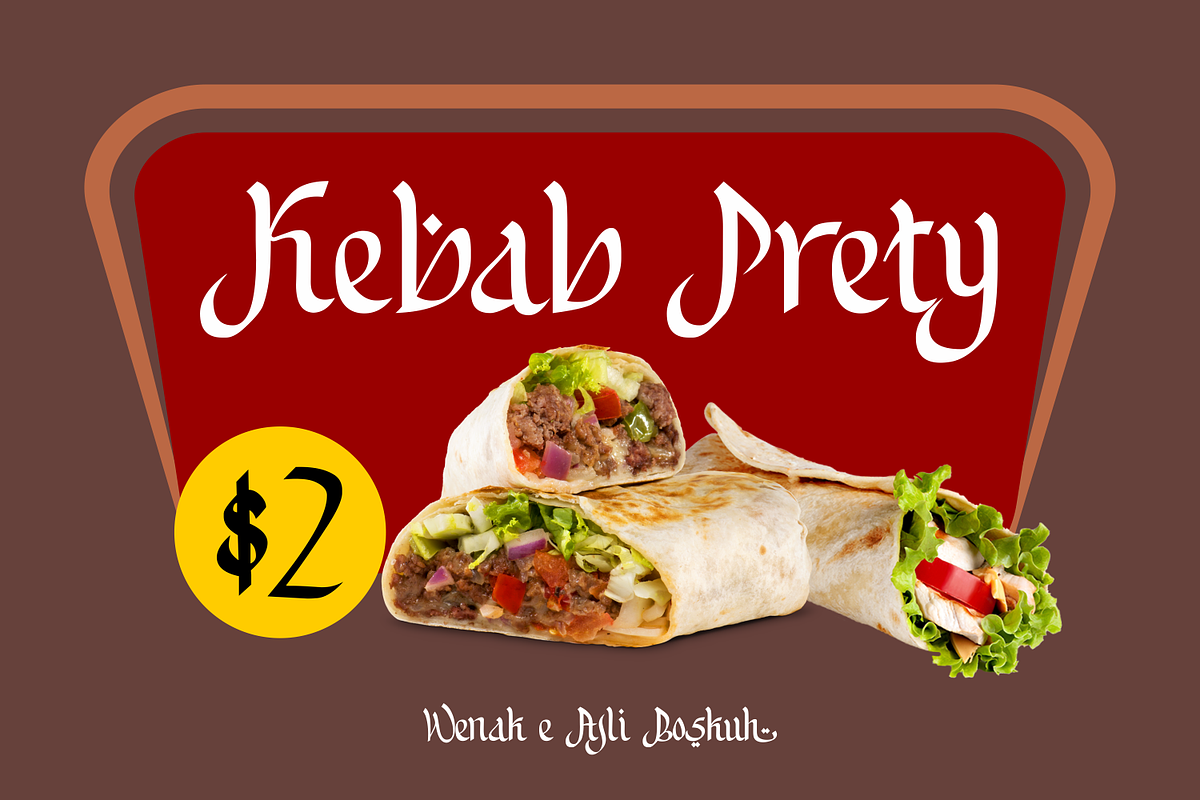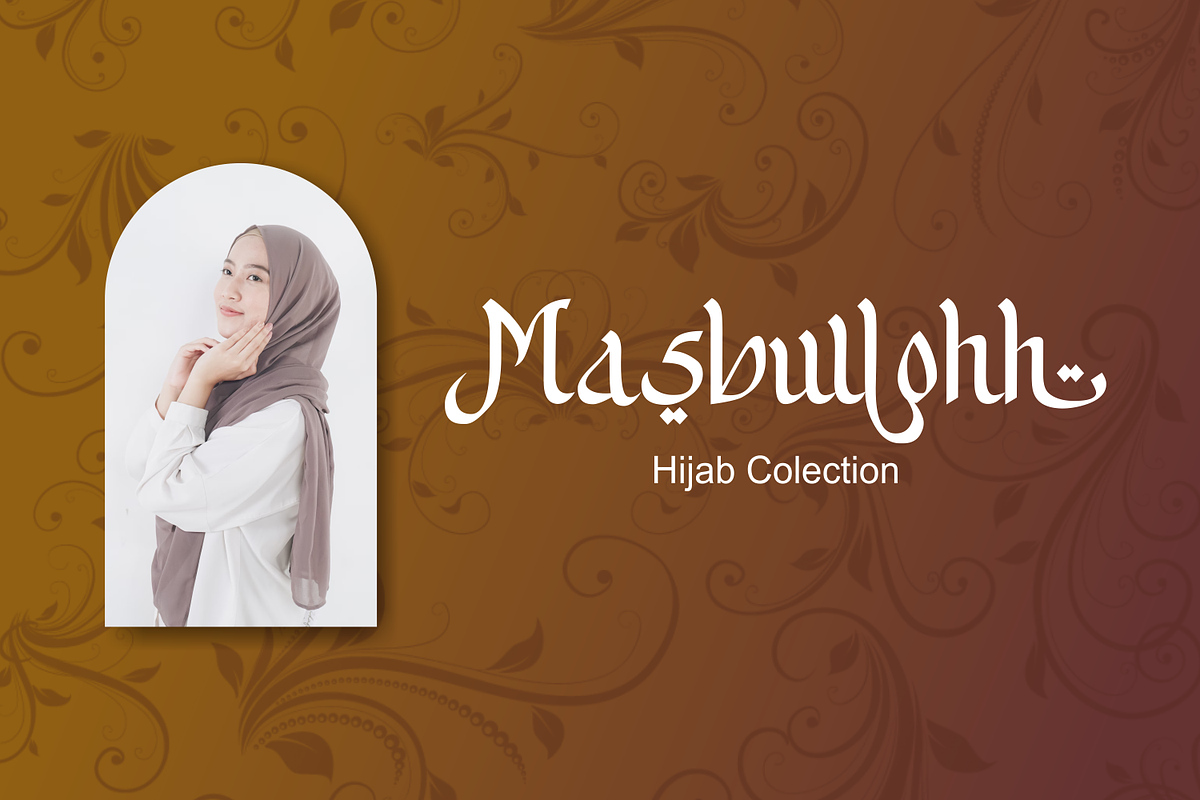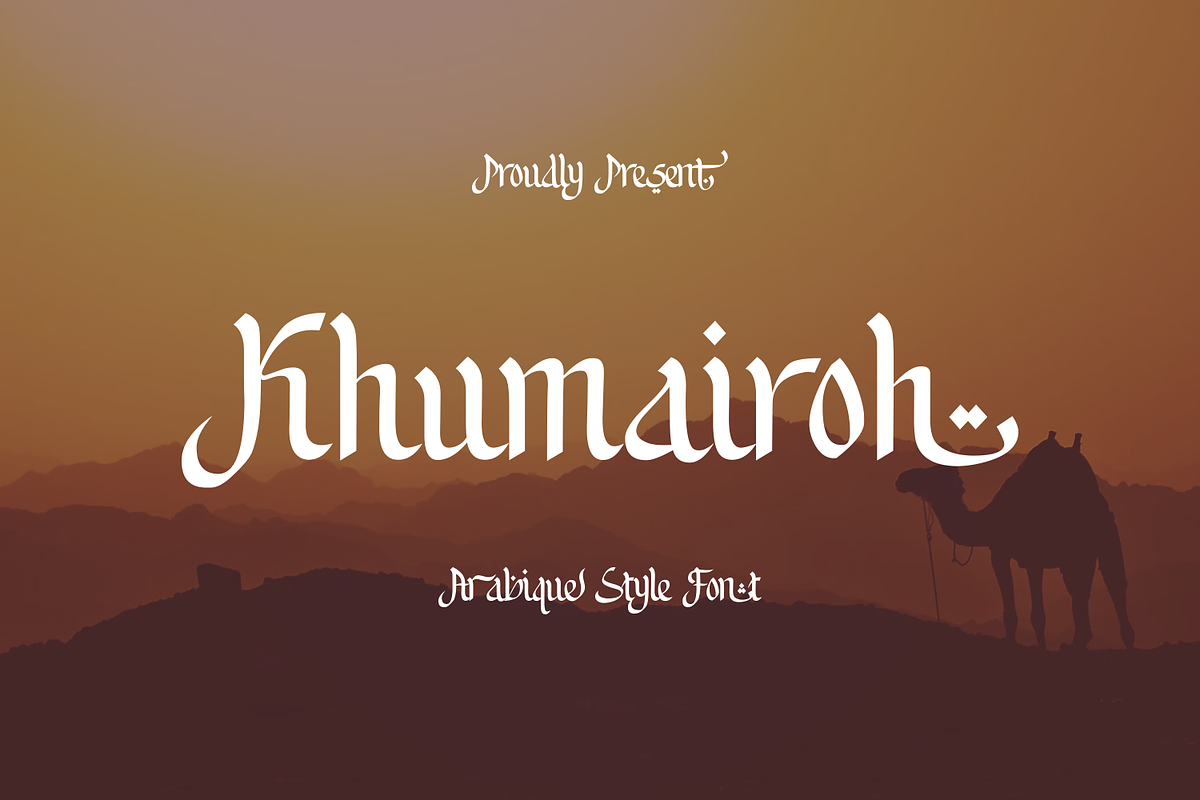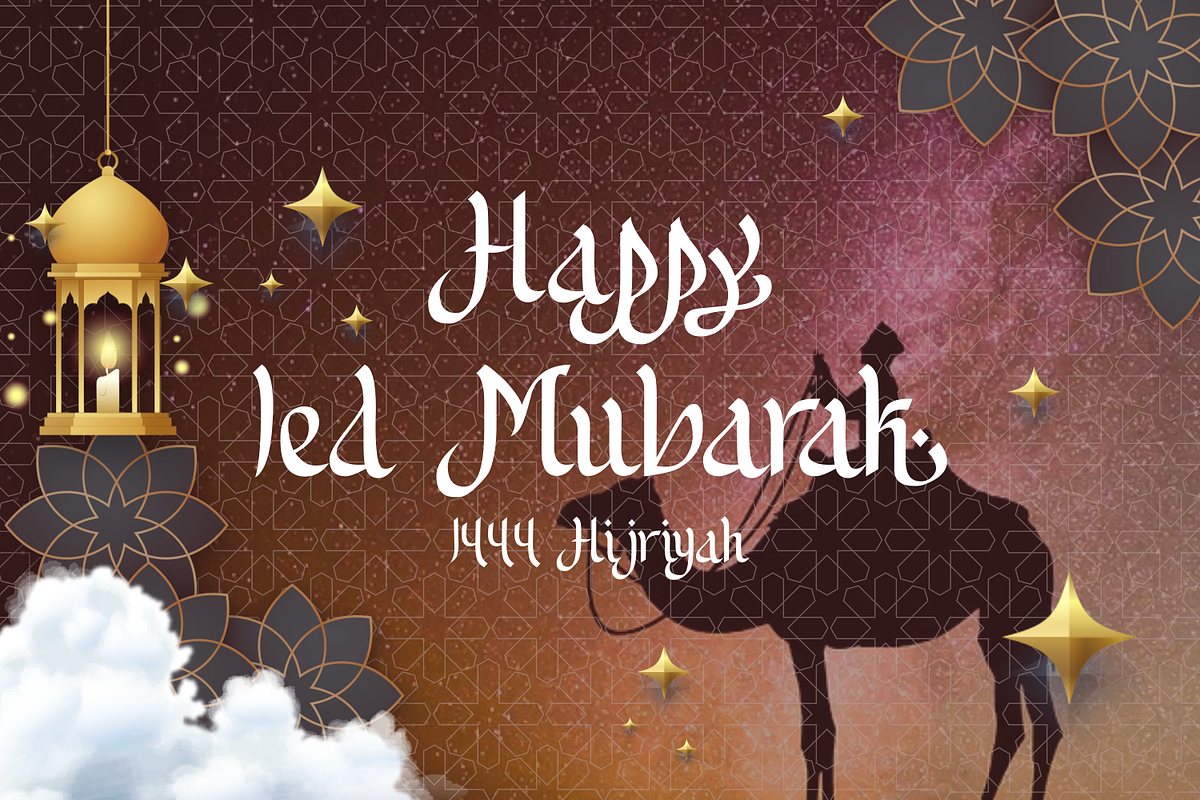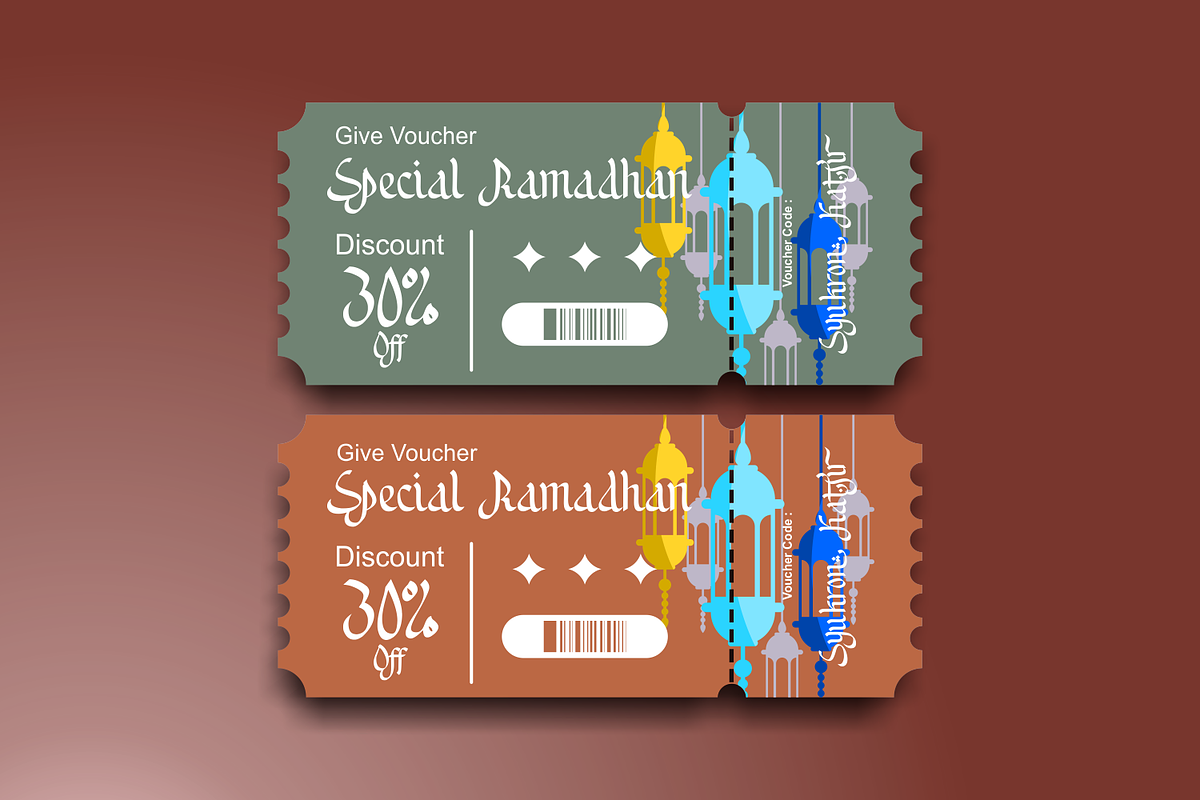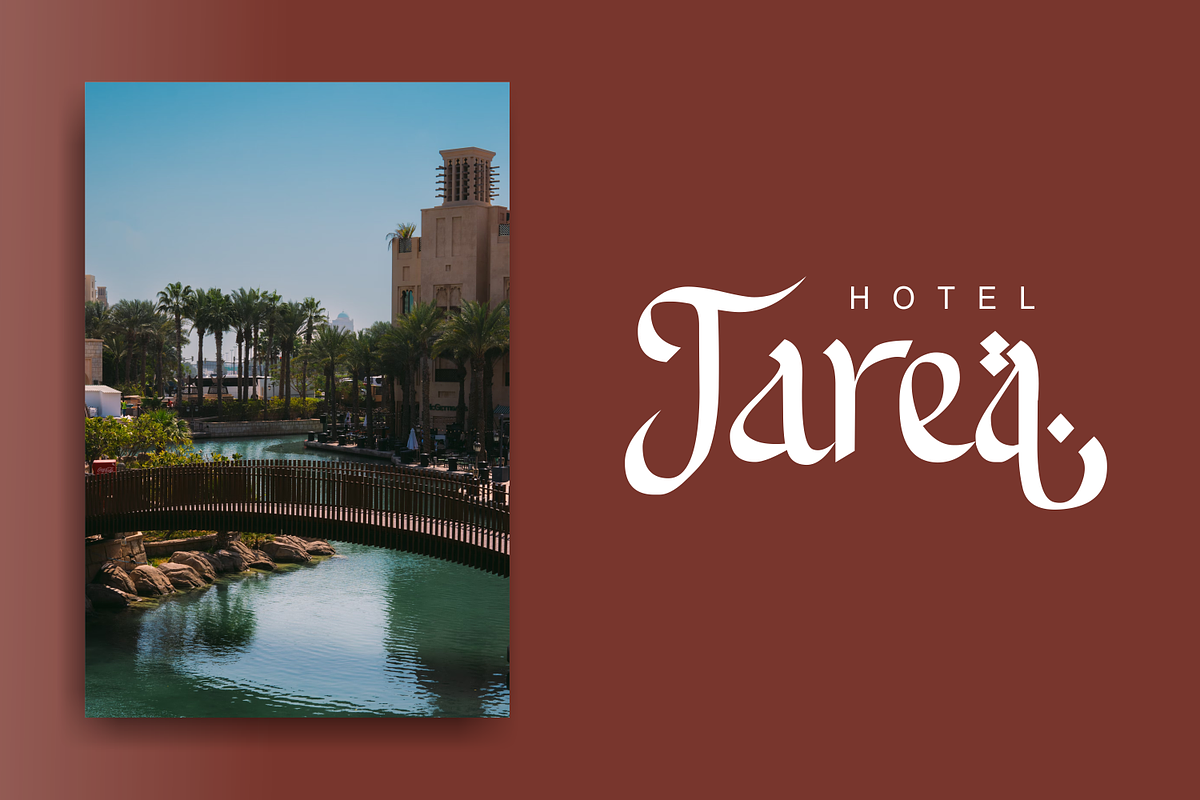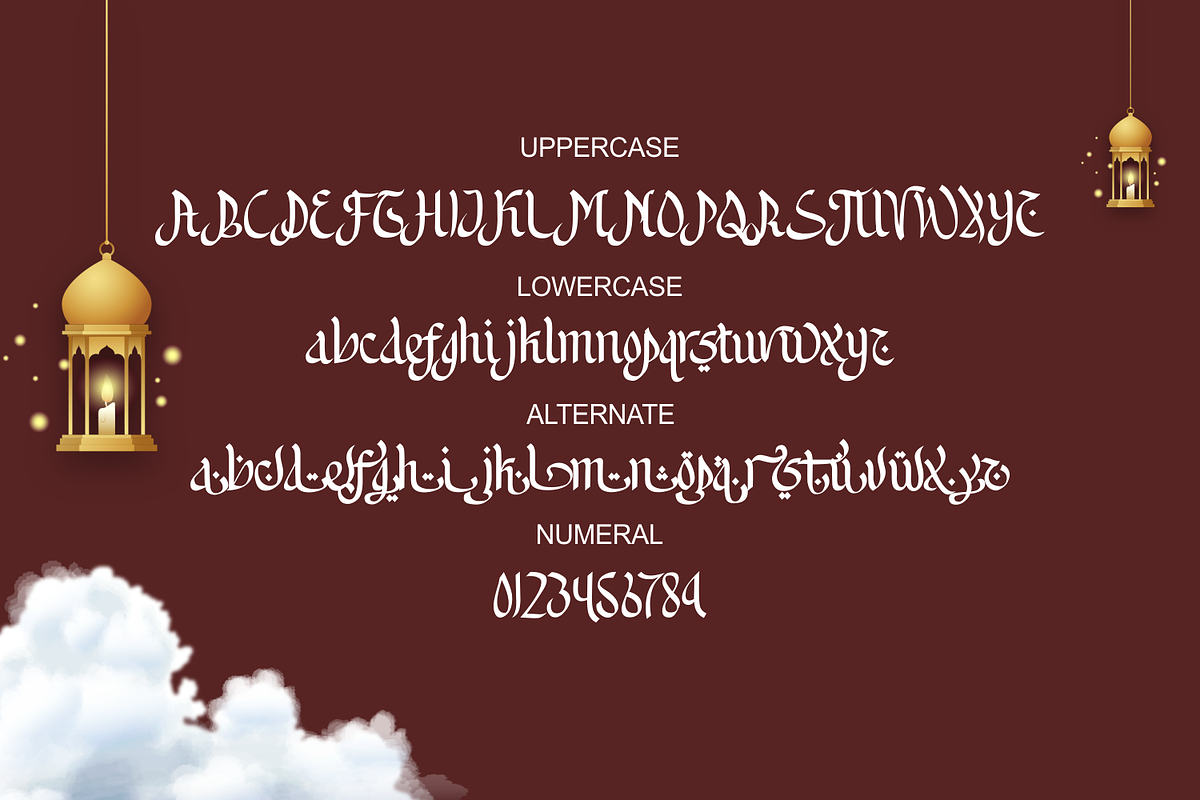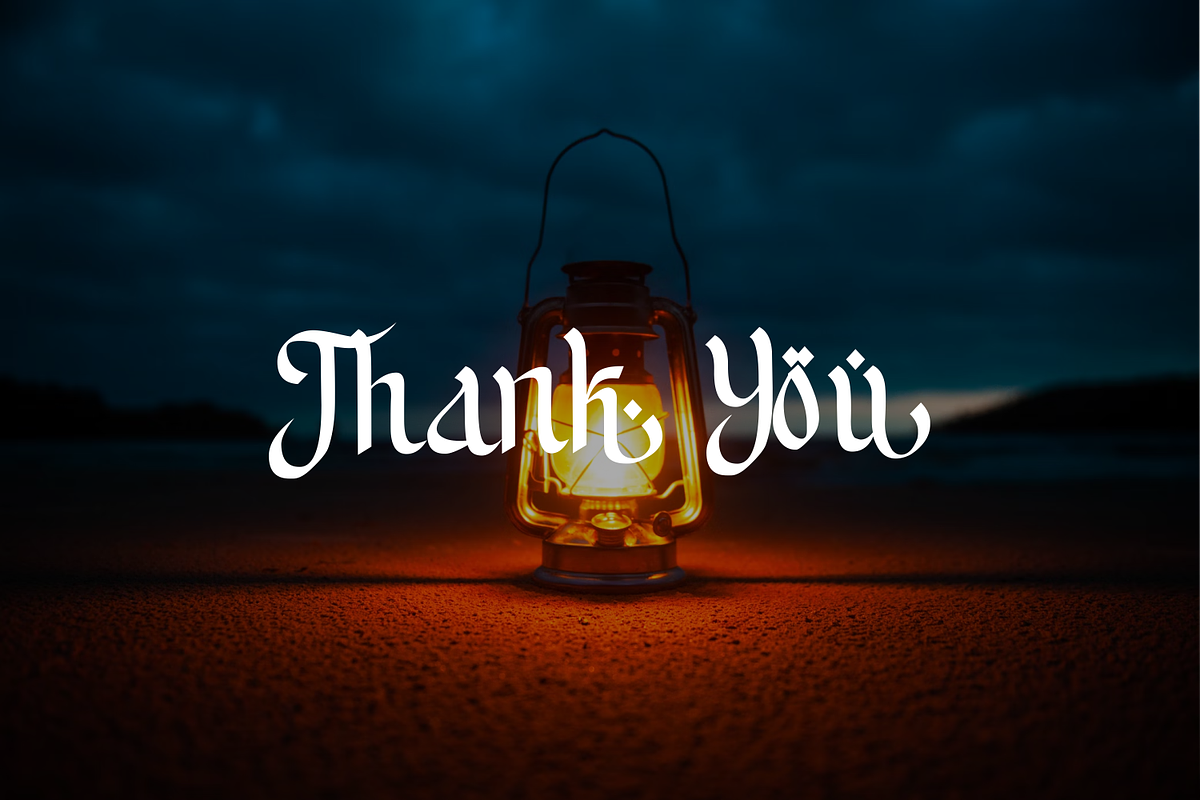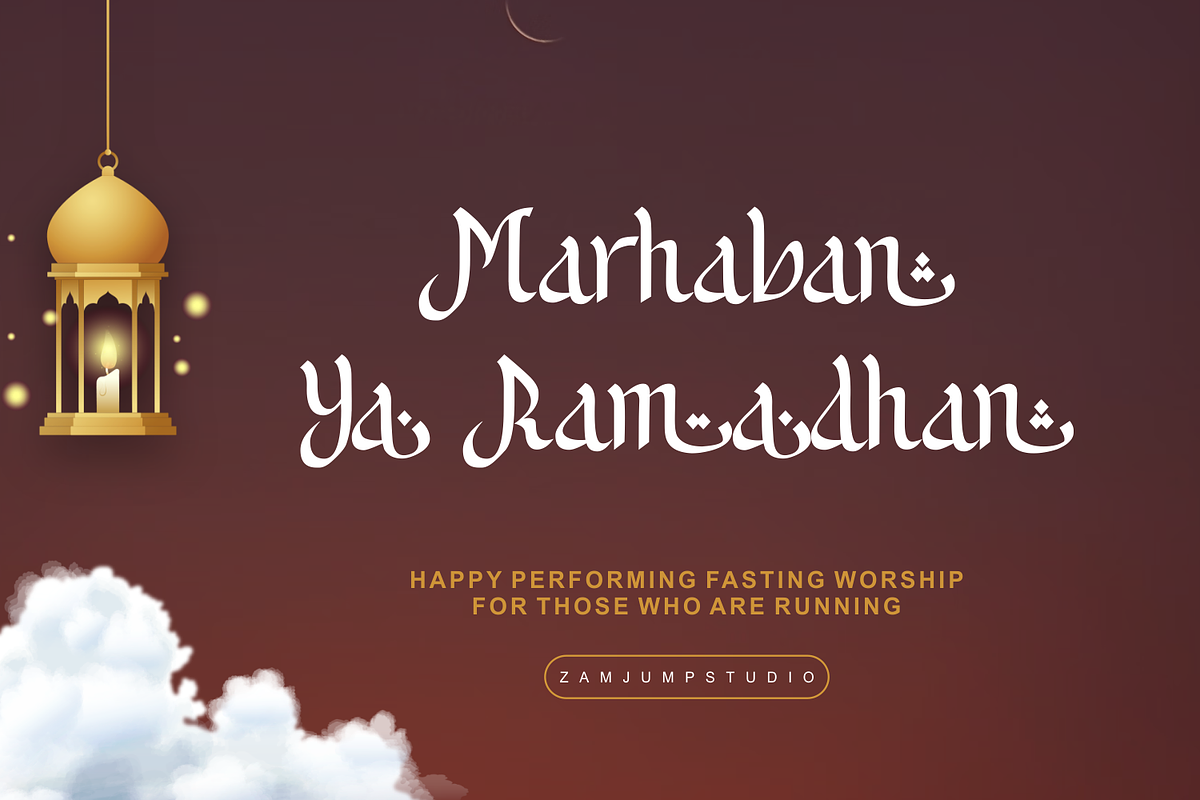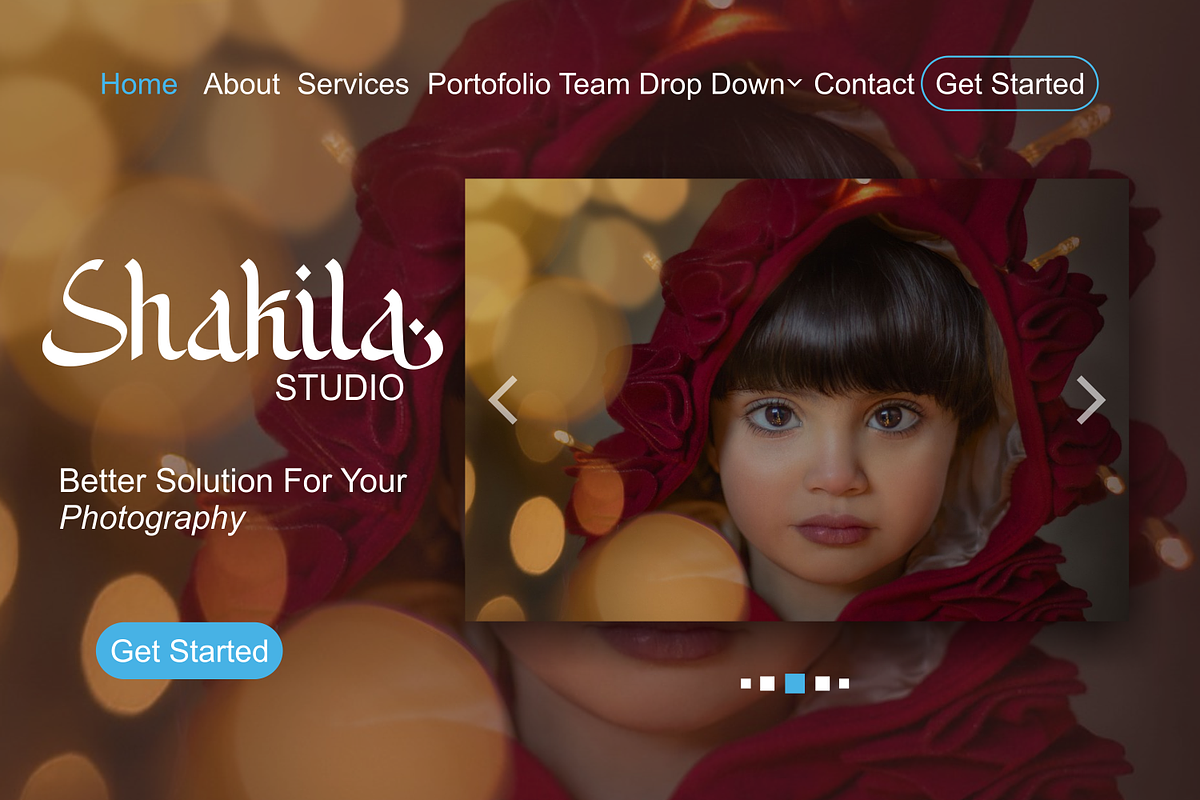
Khumairoh
Introducing Khumairoh, a new Arabic font, inspired by classic Latin handwriting and Arabic letters. The letterforms are designed with a blend of Arabic typography and calligraphy. Khumairoh is designed to be versatile so you can use this font for many themes, not just Islamic or Arabic. It can be applied to posters, logos, branding, greeting cards, weddings, clothing, cosmetic labels, packaging, book covers, short body text, quotes and more!